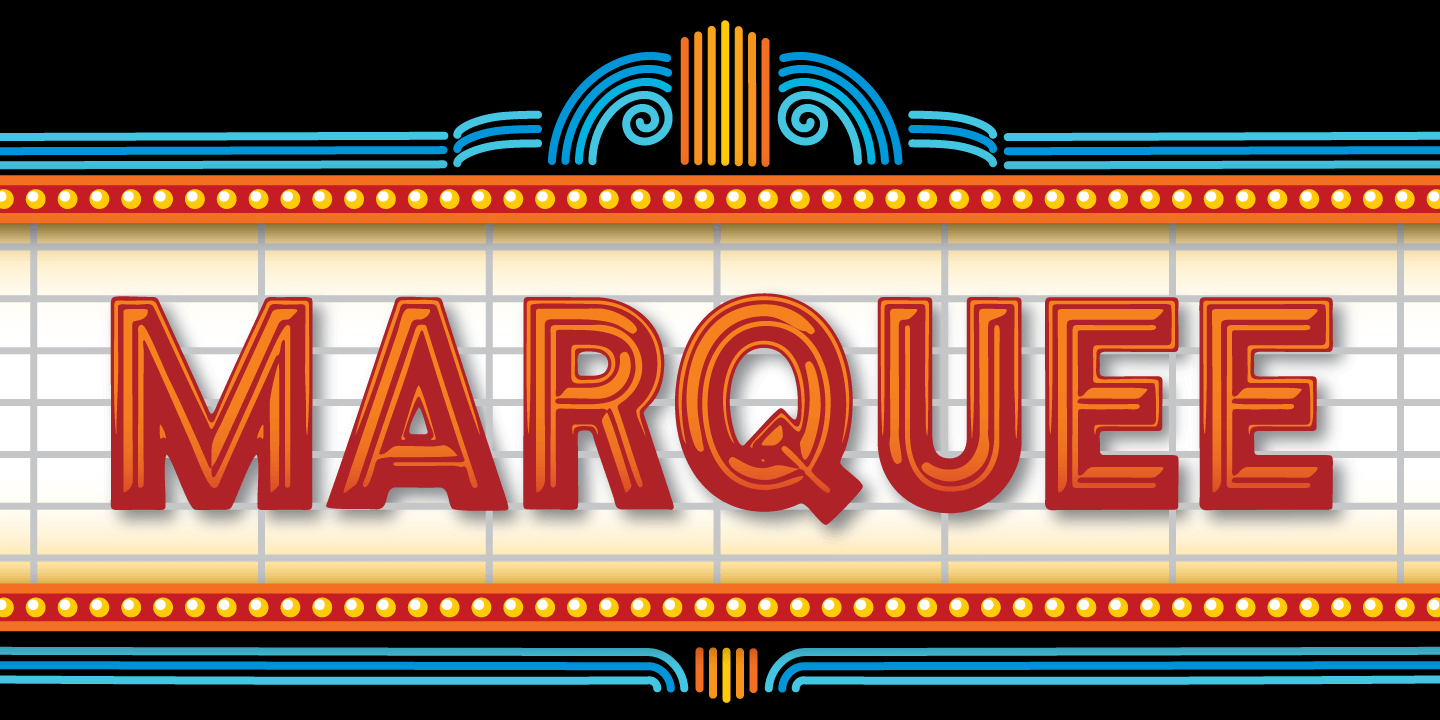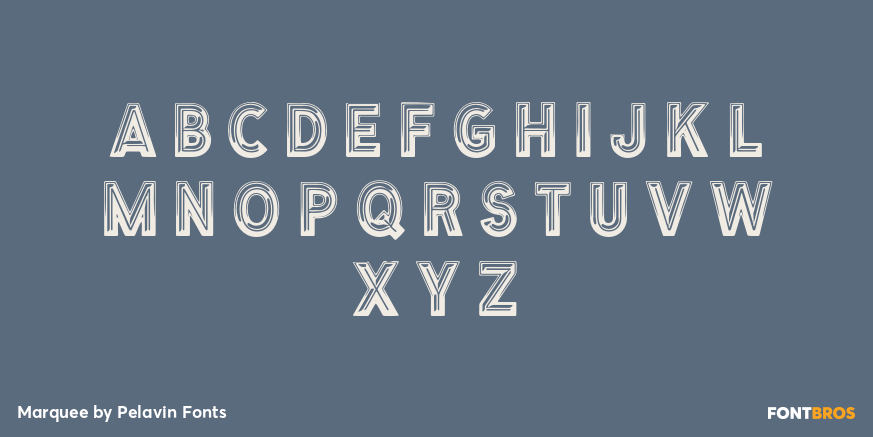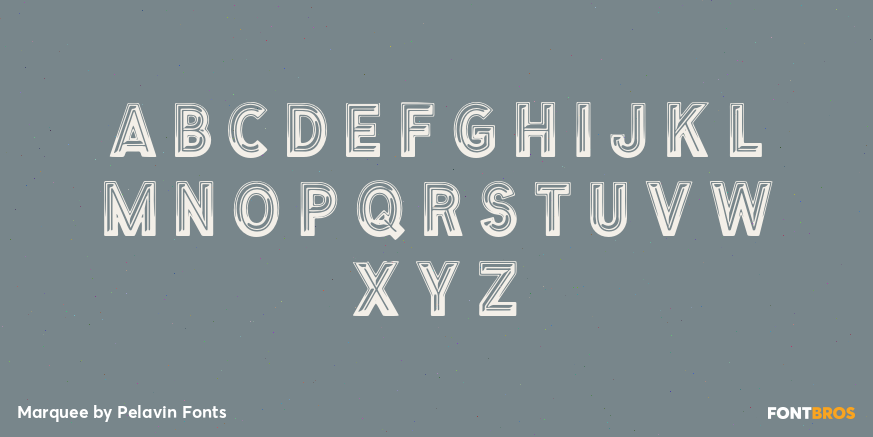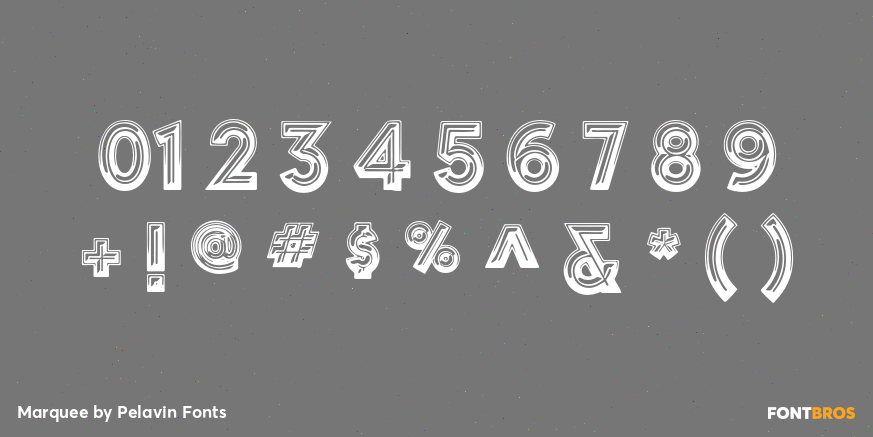
Marquee
Font Family by Pelavin Fonts
Marquee is a family of two fonts, containing both faceted and solid characters which can be layered to effect 3D, dimensional and translucent marquee-style typography, allowing for the creation of headlines reminiscent of classic theater and motion picture marquee signage.